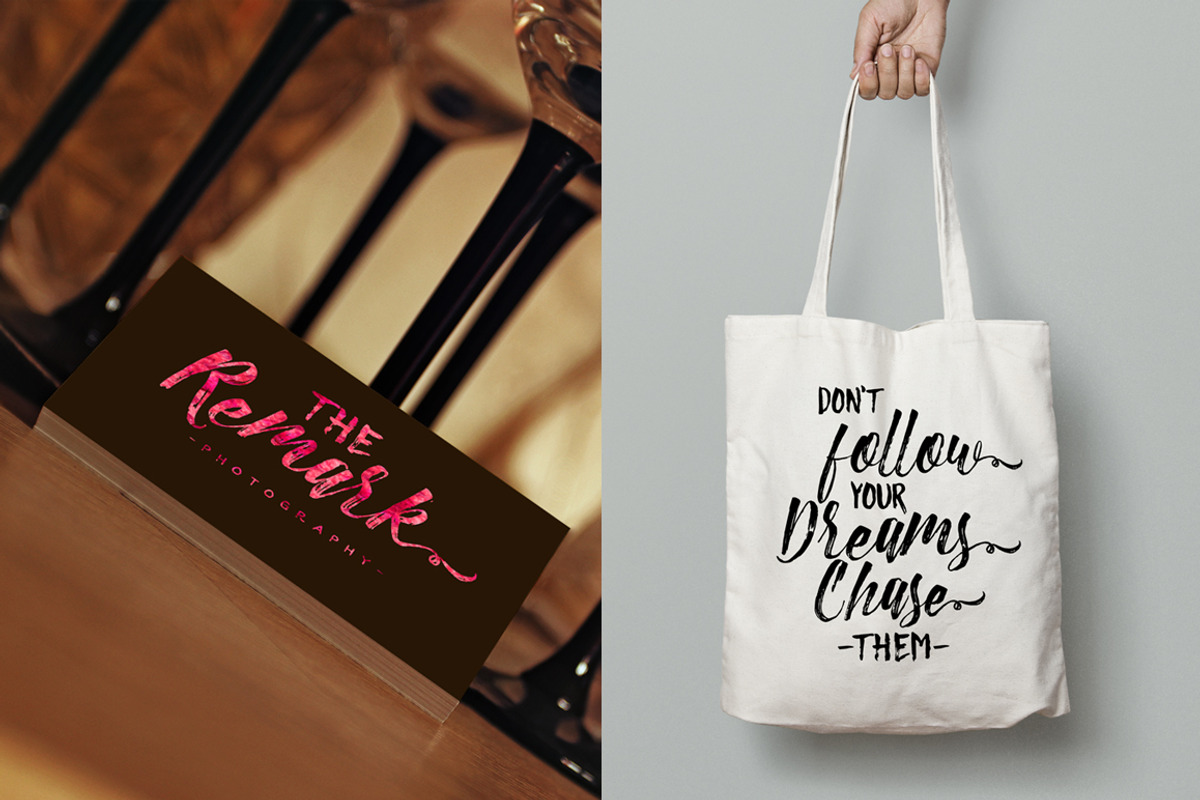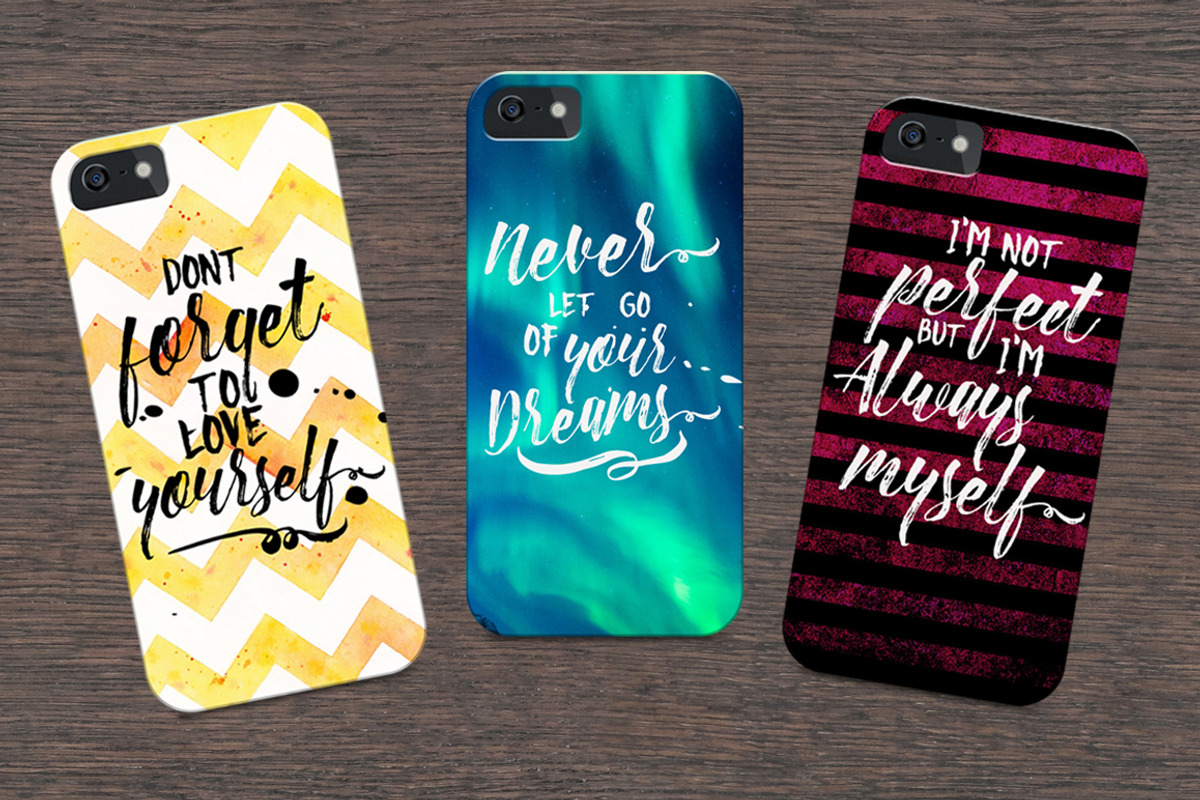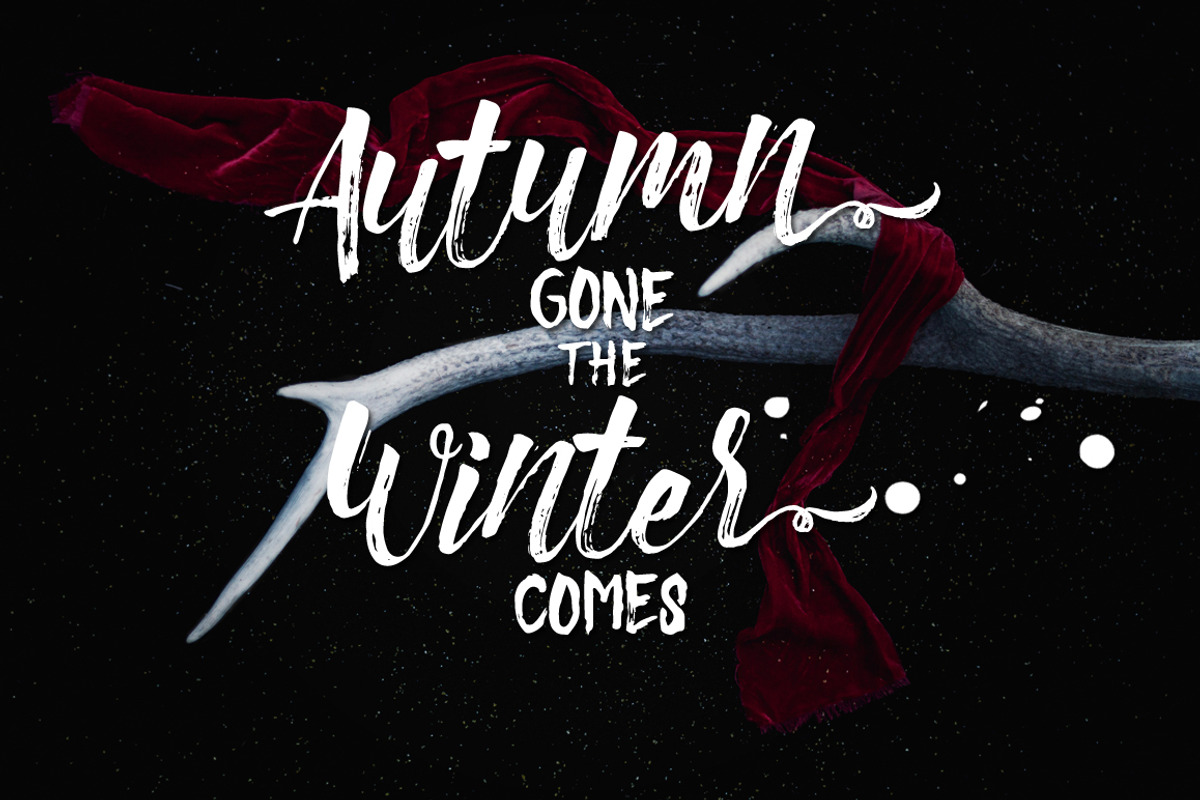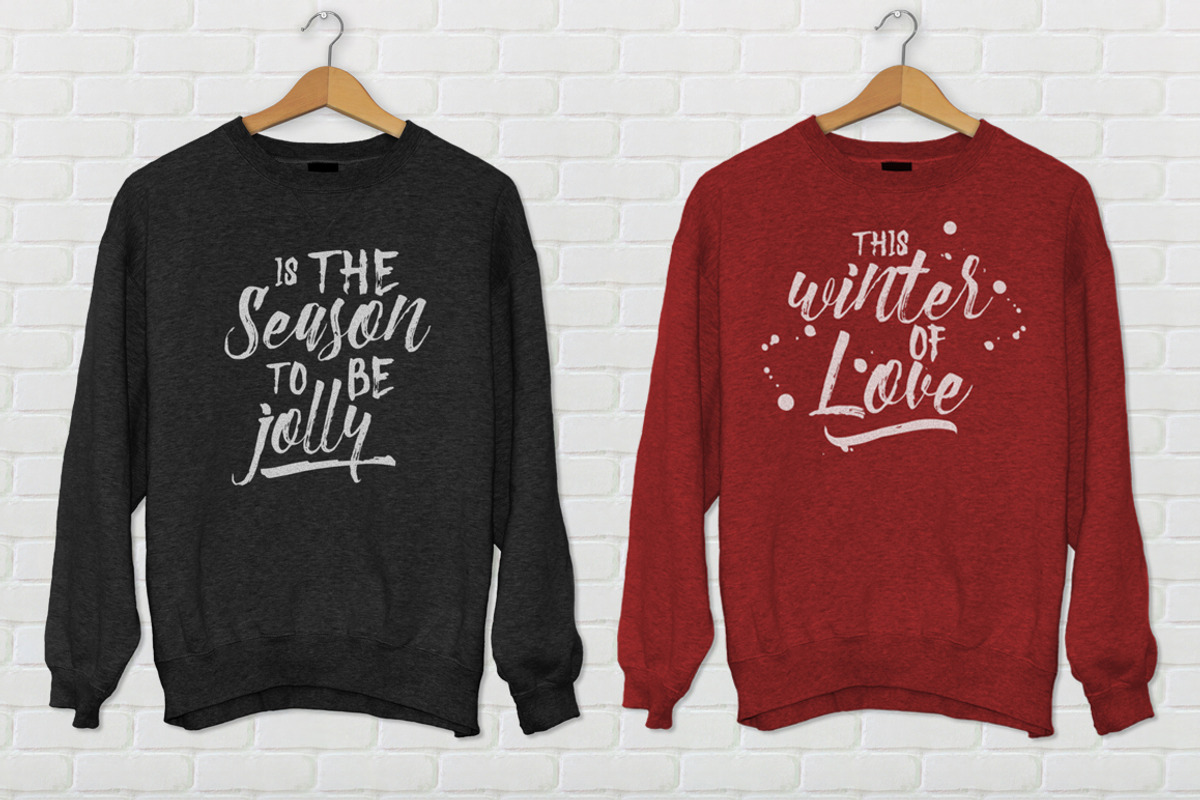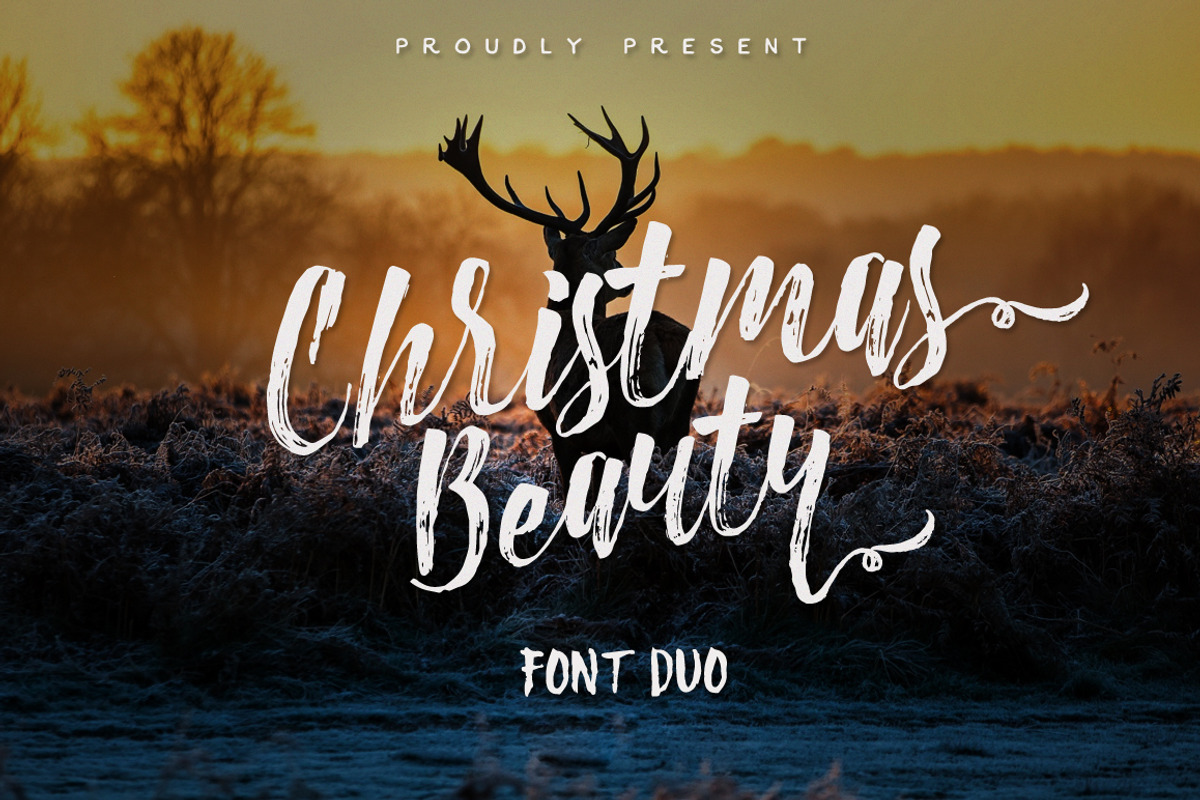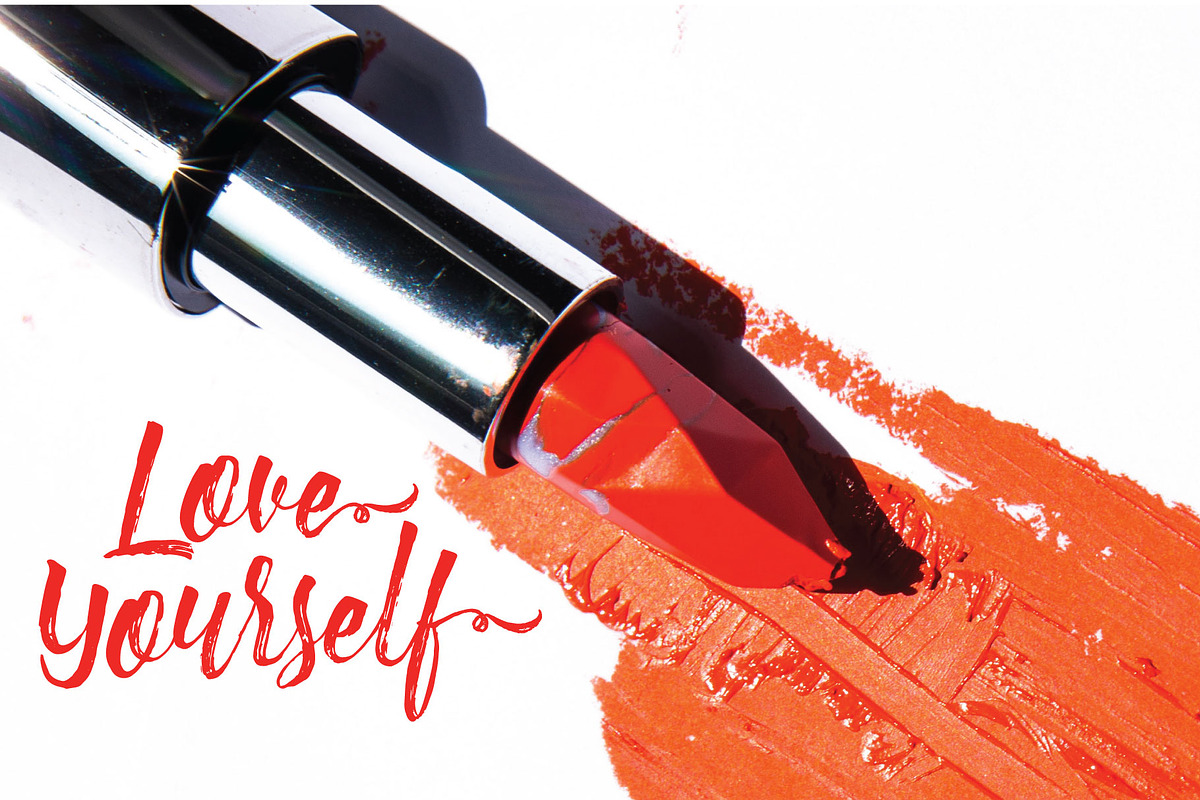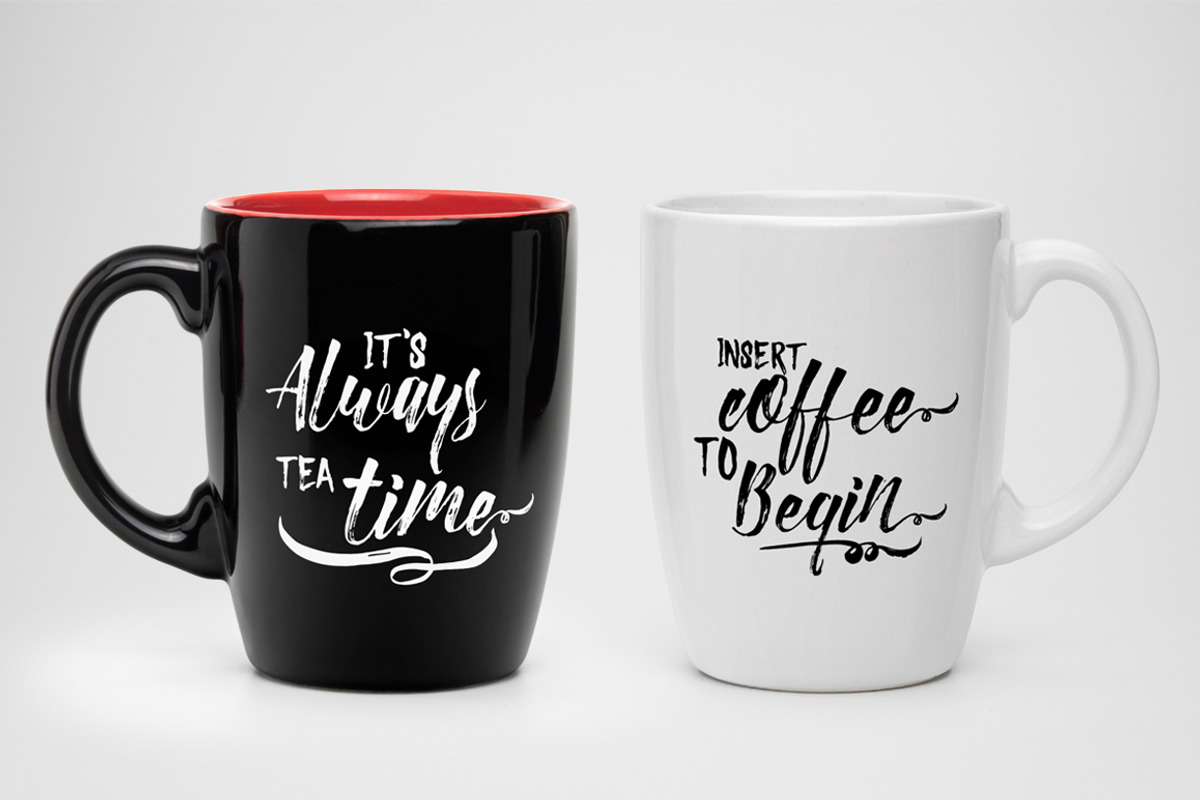
Christmas Beauty + Swashes
Christmas Beauty Typeface is a hand-inked, 'semi-script' font with tight kerning, and a fun, imperfect baseline. It's nice and rough, plus a little gritty - Perfect for creating organic, fluid typography on products, branding, invitations, fliers, posters and more! Don't forget to add the splatter freebies! It just adds to the inky goodness!